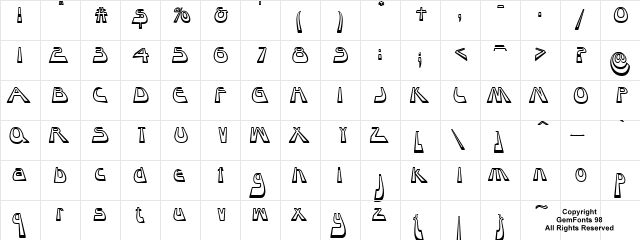
Layaway Regular
Design Context for Layaway Typeface
Layaway is a composed and adaptable typeface that performs quietly and consistently across a wide range of design contexts.
Pro Tip: Use Layaway in both headline and body roles to test its range before committing to a single application.